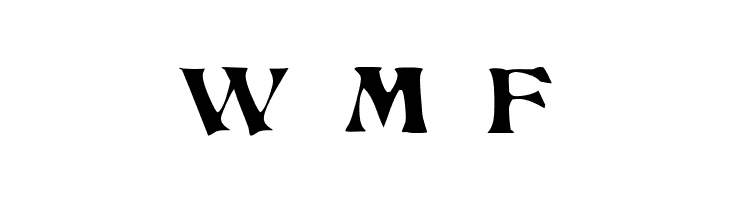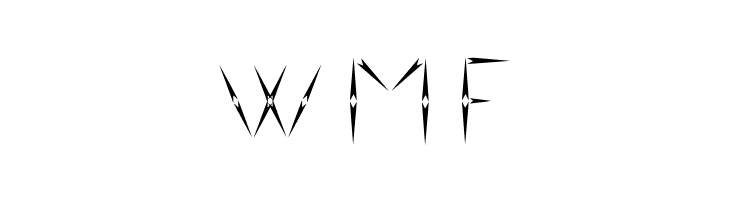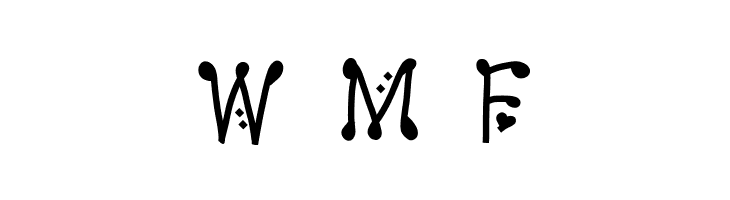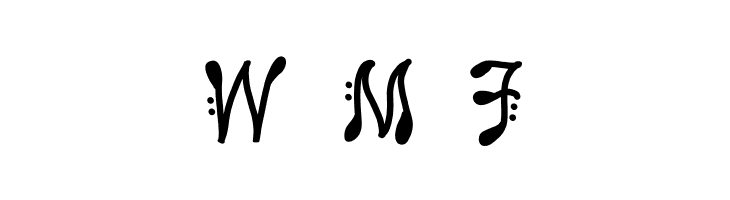
( Tharique Azeez - niram.org )
A modern, geometric font with a sleek, futuristic design.
A bold, playful font with chunky, rounded characters and whimsical swirls.
A bold, playful font with whimsical, dynamic characters.
A whimsical and artistic font with exaggerated curves and dynamic strokes.
A bold, artistic font with a modern, cut-out style.
( Fonts by l'invisible )
A decorative, angular font with sharp, geometric shapes and high contrast.